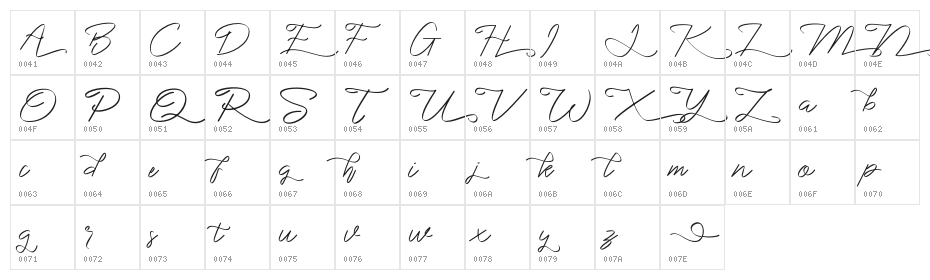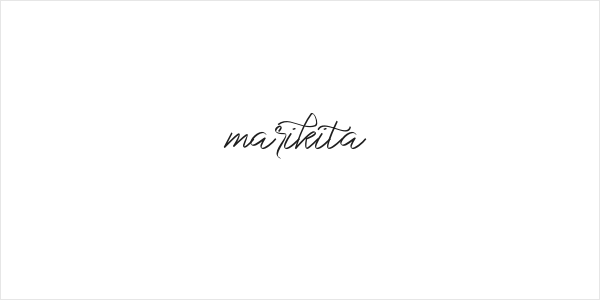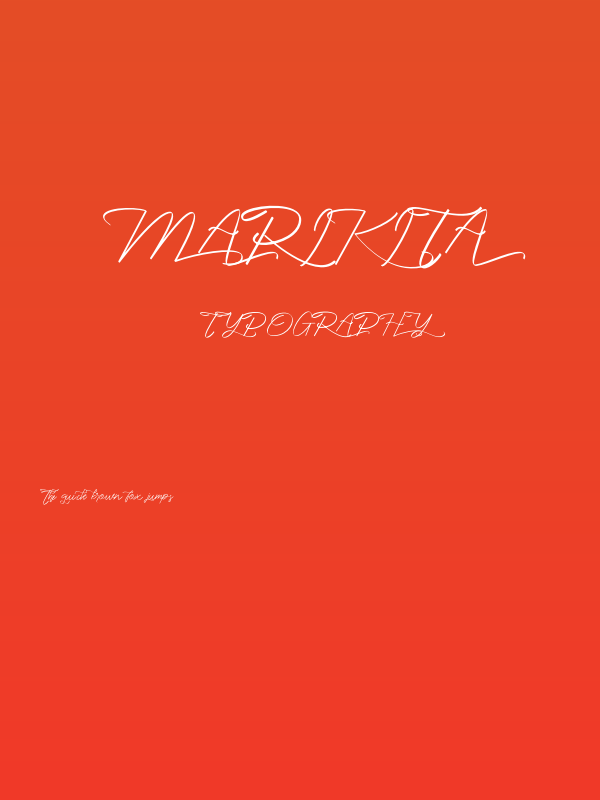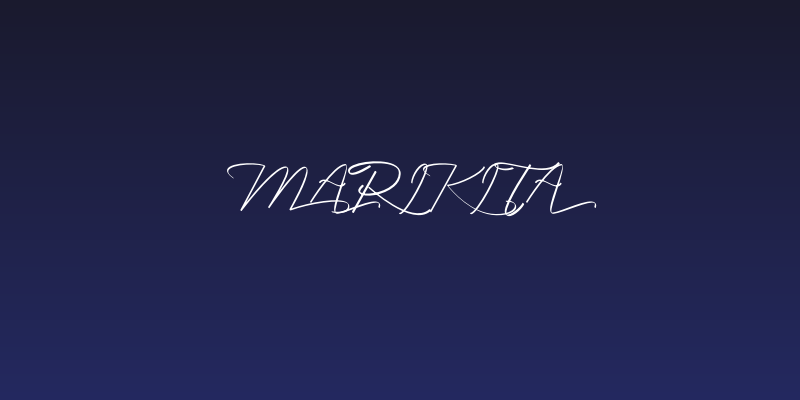
marikita Font
marikita Description
This font features an elegant and flowing script style, characterized by its cursive, interconnected letters. The uppercase letters exhibit a sophisticated flair with extended loops and swashes, while the lowercase letters maintain a consistent fluidity, enhancing the overall graceful appearance. The font's design is reminiscent of traditional calligraphy, with a modern twist that adds a touch of refinement. Its delicate strokes and smooth curves create a sense of movement and elegance, making it ideal for projects that require a personal and artistic touch.
| Proposed Projects | Ideal for wedding invitations, greeting cards, branding, and elegant logo designs. |